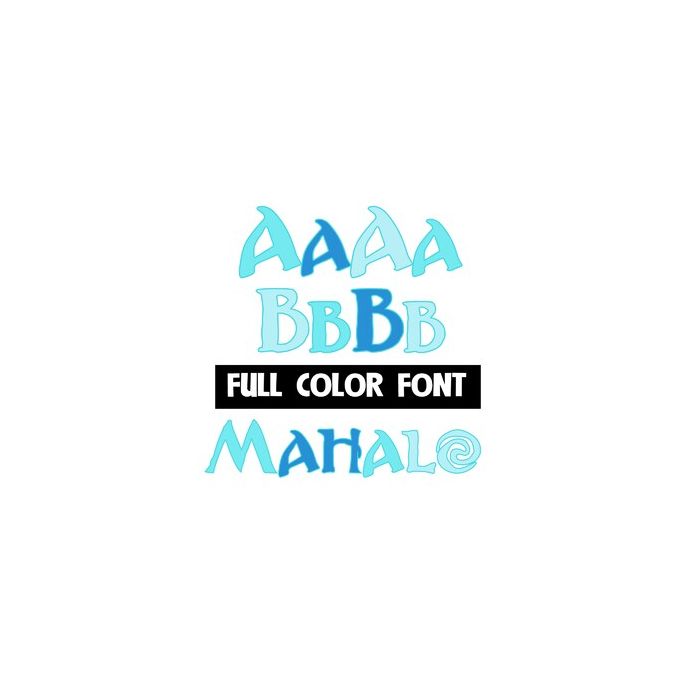
This full-color font features an island-style font in trio of blue colors. This font works best for titles, displays, posters and more. Please note color fonts will show as black in non compatible programs. This font type is compatible with Silhouette Studio.